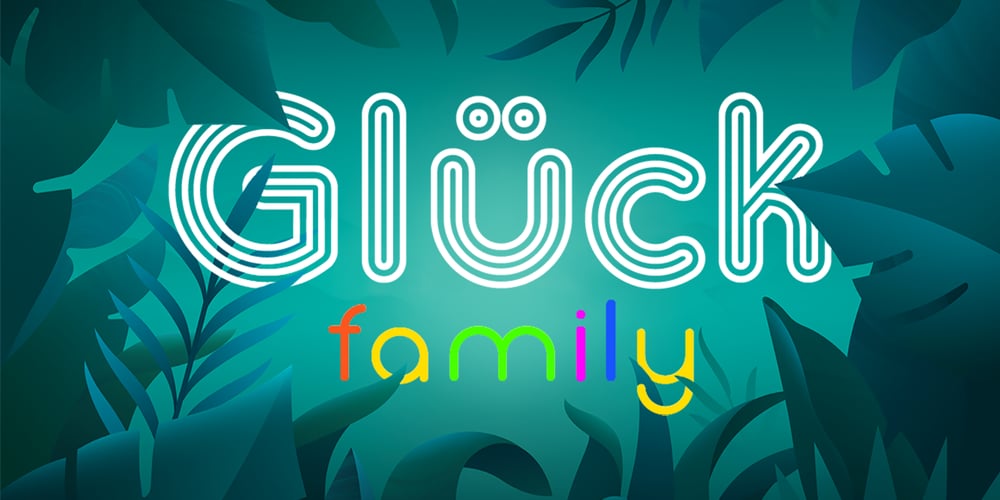
Gluck Font Family was designed by Alex Etewut and published by Etewut. Gluck contains 5 styles and family package options. Gluck family is based on sans serif font. It fits to product design, any commercial and decorations. Glück family supports european languages. It includes 5 styles: • regular • stroked • bold • bold stroked • stripes